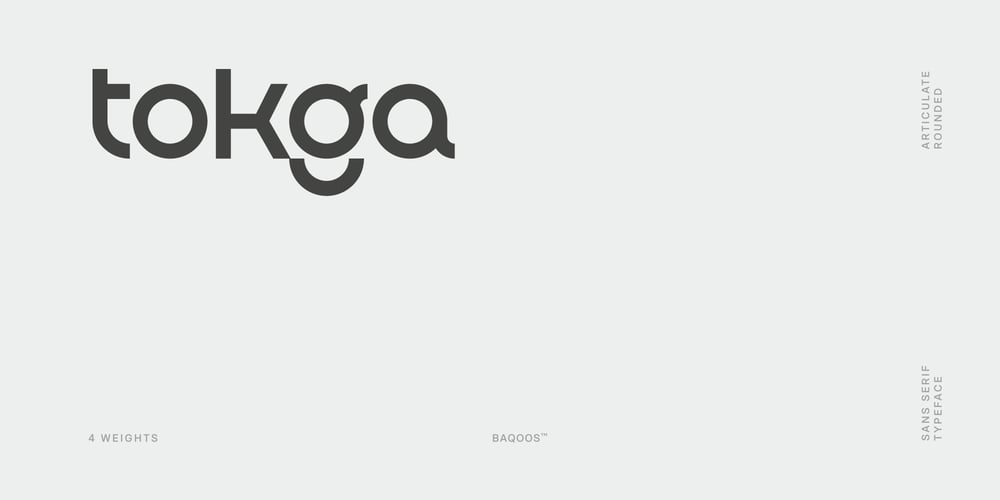
Tokga Font Family was designed by Andrew Seah and published by Baqoos. Tokga contains 4 styles and family package options. Tokga is an articulate rounded linear sans apt for headline, editorial, branding, packaging, printed materials and typographic applications. 200+ glyphs with ligatures and fractions provided in opentype .otf and .woff format.